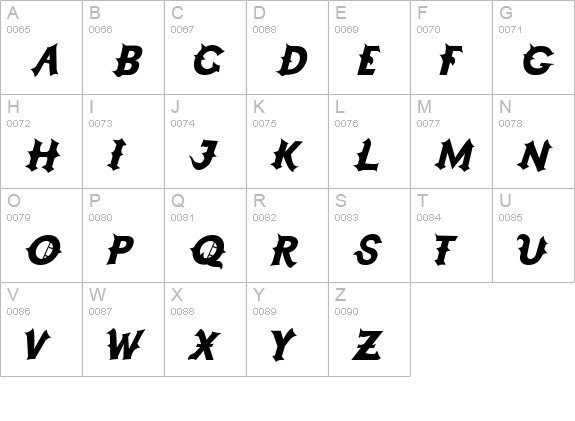
Grappa Font Details
Grappa font is a versatile and elegant typeface that exudes sophistication and charm. With its unique blend of classic and modern elements, Grappa is perfect for a wide range of design projects, from elegant invitations to sleek branding materials. This free font offers a timeless appeal with its clean lines and balanced proportions, making it a versatile choice for both print and digital applications. Whether you're looking to add a touch of sophistication to your next project or simply want to elevate your design aesthetic, Grappa is sure to impress. Best of all, Grappa font is freely available to download at FontsMarket.com, allowing you to access this premium typeface without breaking the bank. Don't miss out on the opportunity to enhance your designs with the timeless beauty of Grappa font. Download it today and see the difference it can make in your creative projects.